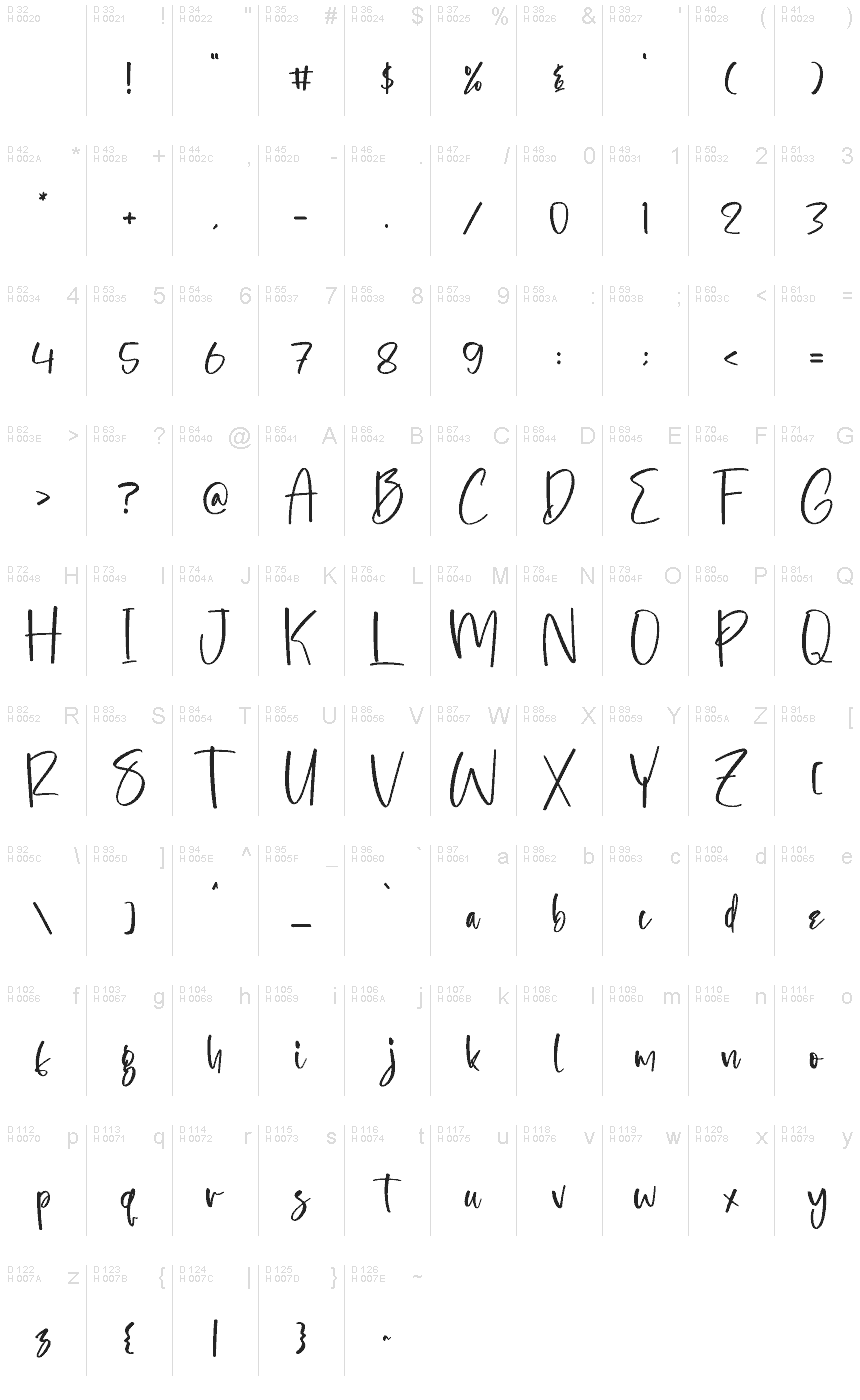
Bashttonem
Bashttonem font is a free handwritten font by Letterena Studios that looks lively yet casual. While it maintains a modern sensibility, its letters give a feel of relaxed sophistication and artistic flair. The condensed appearance of this font helps an additional enhancing effect whenever and wherever it is used.
Let Bashttonem serve your branding, signage, labeling, book covers designs, blogging projects, logo making, magazine headings designing, fashion invites writing among many more.